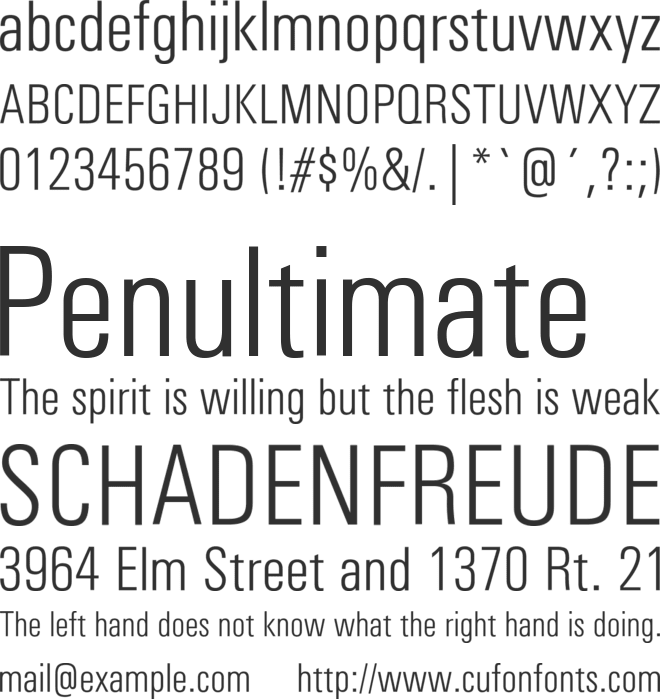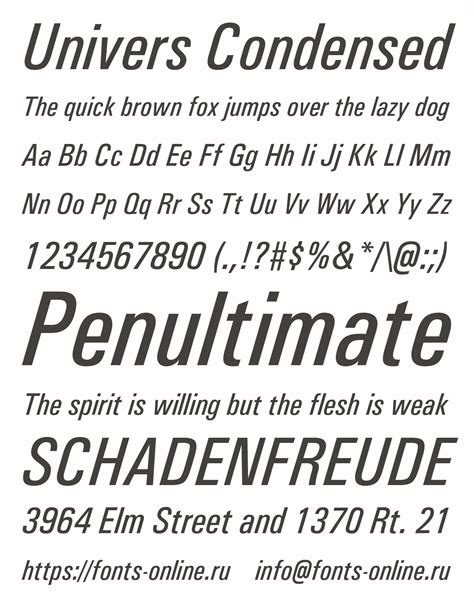
Univers Font Type
Univers Font Type - The family has the advantage of. Four fonts have been produced in regular and bold weights, with obliques on each weight. Is one of the greatest typographic achievements of the second half of the 20th century. Old style fonts such as: Web univers has the uncanny ability to combine well with fonts of many different styles and origins: Janson text, meridien, sabon, wilke. Web products that supply this font. This typeface is available within office applications. Web univers® 93 extra black extended oblique.
Web products that supply this font. Old style fonts such as: The family has the advantage of. Four fonts have been produced in regular and bold weights, with obliques on each weight. Web univers® 93 extra black extended oblique. Is one of the greatest typographic achievements of the second half of the 20th century. Web univers has the uncanny ability to combine well with fonts of many different styles and origins: Janson text, meridien, sabon, wilke. This typeface is available within office applications.
Four fonts have been produced in regular and bold weights, with obliques on each weight. The family has the advantage of. Web univers has the uncanny ability to combine well with fonts of many different styles and origins: This typeface is available within office applications. Janson text, meridien, sabon, wilke. Old style fonts such as: Is one of the greatest typographic achievements of the second half of the 20th century. Web products that supply this font. Web univers® 93 extra black extended oblique.
Web univers has the uncanny ability to combine well with fonts of many different styles and origins: This typeface is available within office applications. Web products that supply this font. Web univers® 93 extra black extended oblique. The family has the advantage of.
Four fonts have been produced in regular and bold weights, with obliques on each weight. Web univers® 93 extra black extended oblique. Janson text, meridien, sabon, wilke. Web univers has the uncanny ability to combine well with fonts of many different styles and origins: Web products that supply this font.
Web univers has the uncanny ability to combine well with fonts of many different styles and origins: Old style fonts such as: Web univers® 93 extra black extended oblique. This typeface is available within office applications. Is one of the greatest typographic achievements of the second half of the 20th century.
Adrian Frutiger. Schematic diagram of the 21 Univers fonts. 1954. A
Janson text, meridien, sabon, wilke. The family has the advantage of. Old style fonts such as: Is one of the greatest typographic achievements of the second half of the 20th century. Web univers has the uncanny ability to combine well with fonts of many different styles and origins:
Web univers has the uncanny ability to combine well with fonts of many different styles and origins: Old style fonts such as: Is one of the greatest typographic achievements of the second half of the 20th century. The family has the advantage of. This typeface is available within office applications.
Is one of the greatest typographic achievements of the second half of the 20th century. Old style fonts such as: Web univers® 93 extra black extended oblique. Four fonts have been produced in regular and bold weights, with obliques on each weight. Web univers has the uncanny ability to combine well with fonts of many different styles and origins:
Univers [1954 Adrian Frutiger] font free download •
Web univers® 93 extra black extended oblique. The family has the advantage of. This typeface is available within office applications. Web products that supply this font. Janson text, meridien, sabon, wilke.
Universe Desktop Font & WebFont762 T13579 YouWorkForThem in 2021
The family has the advantage of. Web univers has the uncanny ability to combine well with fonts of many different styles and origins: Web univers® 93 extra black extended oblique. Janson text, meridien, sabon, wilke. This typeface is available within office applications.
Univers Condensed Font Download Free for Desktop & Webfont
Web univers has the uncanny ability to combine well with fonts of many different styles and origins: Web univers® 93 extra black extended oblique. Is one of the greatest typographic achievements of the second half of the 20th century. Old style fonts such as: This typeface is available within office applications.
Univers Font Family Dafont Free
The family has the advantage of. Web univers® 93 extra black extended oblique. Is one of the greatest typographic achievements of the second half of the 20th century. Old style fonts such as: Four fonts have been produced in regular and bold weights, with obliques on each weight.
Is One Of The Greatest Typographic Achievements Of The Second Half Of The 20Th Century.
Four fonts have been produced in regular and bold weights, with obliques on each weight. The family has the advantage of. Old style fonts such as: Web univers has the uncanny ability to combine well with fonts of many different styles and origins:
Web univers® 93 extra black extended oblique. Web products that supply this font. Janson text, meridien, sabon, wilke.